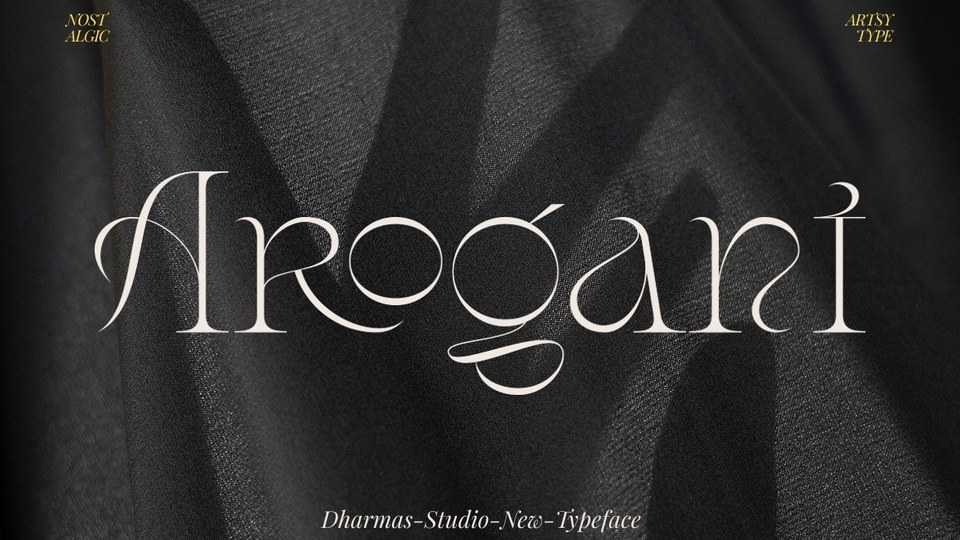
Download Arogant font, a stylish serif typeface with an artistic and classy touch so brings us to the nostalgic era. Arogant will make any project seem chic, luxurious, unique, artistic, and little retro vibes.